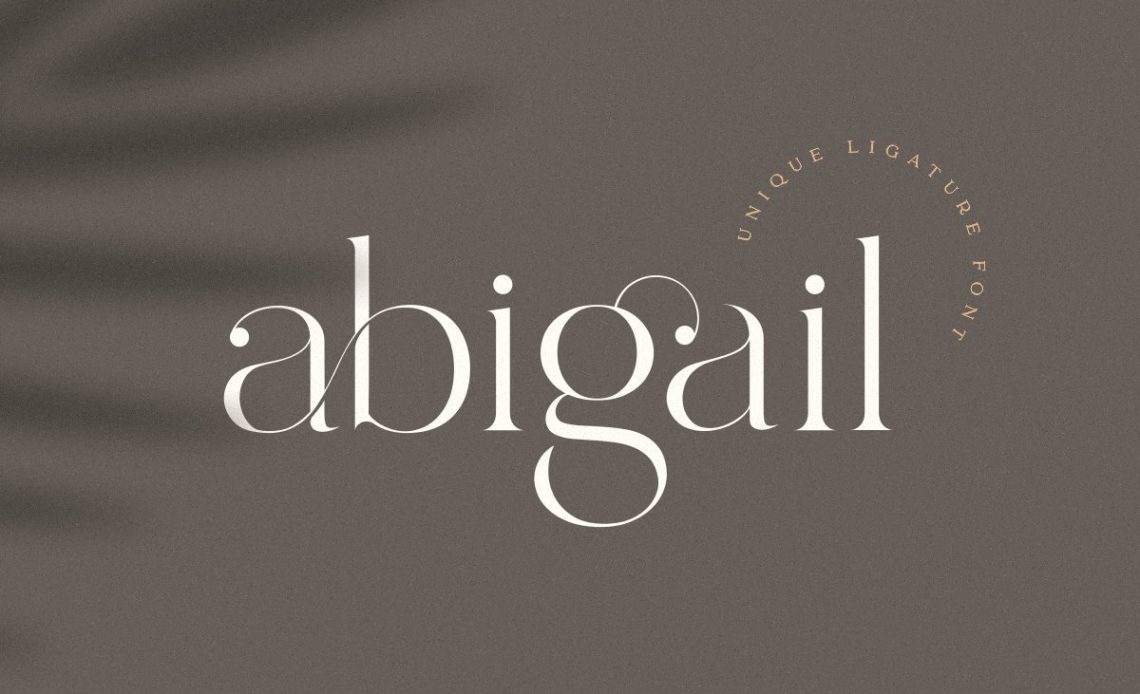
Introducing Abigail - the unique ligature font that will elevate your brand and logo design. Created by Muhammad Zamroni Hamzah, this serif font is perfect for those who want a unique yet elegant style.
As a graphic designer, we understand the importance of having a distinctive logo that stands out. Abigail is the perfect solution to create logos that are both classy and one-of-a-kind. With this font, you can easily create elegant and sophisticated logos that will leave a lasting impression.
Abigail is not your ordinary font. It comes with a variety of ligatures that make it look even more unique. The additional ligatures that come with version 2 make it perfect for branding and logo design.
But that's not all! Abigail includes a full set of uppercase and lowercase letters, multilingual symbols, numerals, and punctuation. You'll get everything you need to create the perfect logo or branding design.